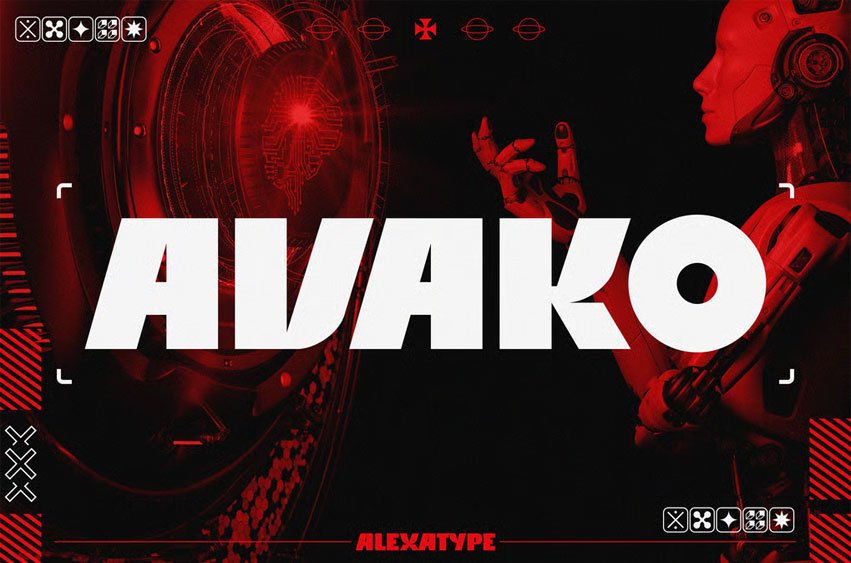
Avako Font is a high-impact display font built for the future—but born from retro gaming grit. With sharp angles, wide forms, and blocky symmetry, it delivers unapologetic power in every word. Think arcade energy, AI themes, and cyber rebellion wrapped into a font that commands attention on posters, packaging, and interface design.
AVAKO thrives in modern tech branding, product UI, esports titles, and anything built to challenge convention and spark momentum. From AI headlines to Cyber Monday deals, this font makes statements that don’t back down.
AVAKO brings the punch of retro arcade aesthetics with a futuristic twist. It’s made to amplify digital narratives, code-driven worlds, and bold tech launches—so you can design like the future just booted up.
- Bold Futurist Letterforms – Chunky, clean-cut forms with modernized grid styling
- Retro Gaming Meets AI – Perfect for tech, sci-fi, metaverse, and arcade content
- All-Caps Energy – Great for headlines, UI banners, gaming dashboards
- Block-Ready Style – Looks powerful in posters, thumbnails, and product mockups
- Perfect for Branding – Use on AI tools, SaaS products, or modern podcasts
- Complete Character Set – Includes numerals, punctuation, and symbols.